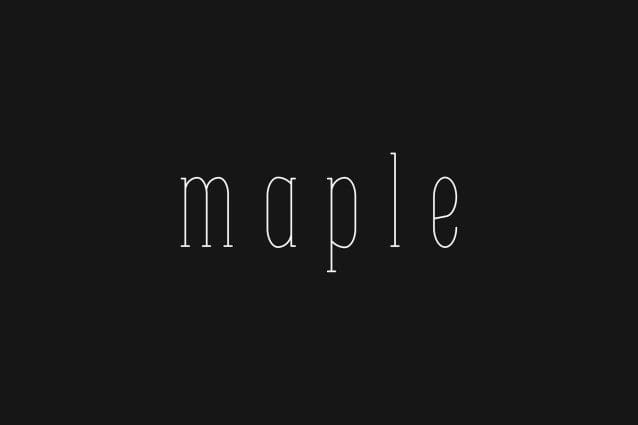
Maple Font
Maple Font is an elegant and versatile serif font that will make your typography truly unique! It will enchant every logo, branding, headline, or plain text!